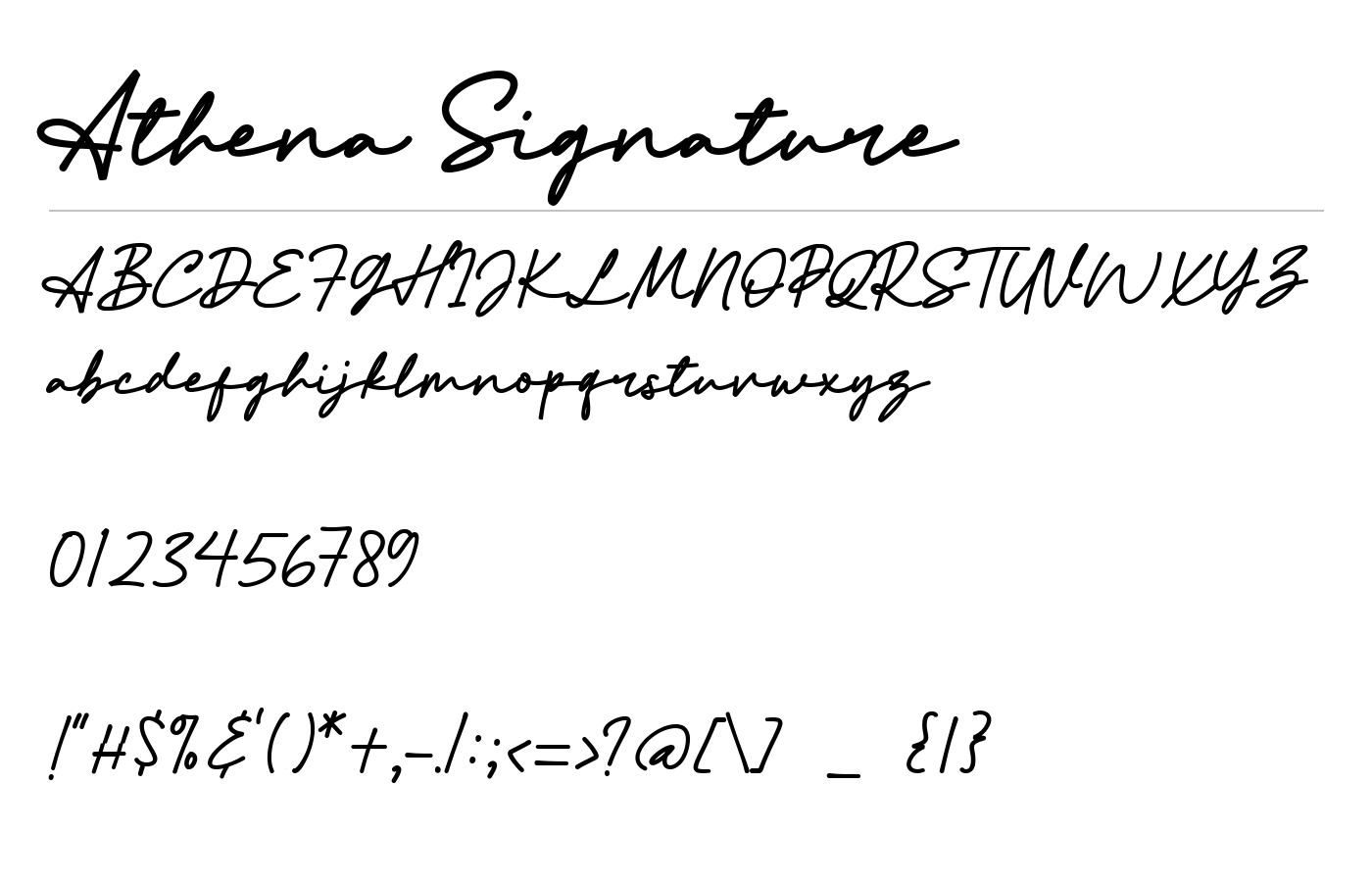
Athena Signature Font is a graceful, handwritten script that exudes a personal and elegant touch, perfect for creating a warm and approachable atmosphere. Its flowing strokes, balanced with a moderate weight and casual style, make it ideal for branding, invitations, and lifestyle designs where a natural yet polished look is desired. This font works beautifully in logos, headlines, and social media graphics, adding a stylish and intimate feel to any project.
Athena Signature Font
About Athena Signature Font
| Font family | Athena Signature Font |
| Designer | Agam Rahmadan |